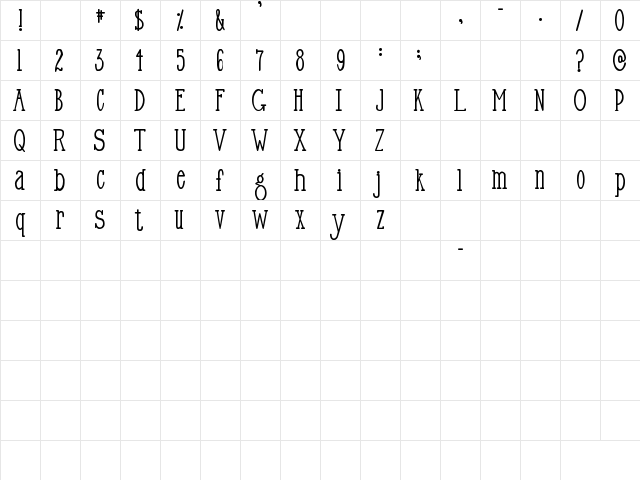
sp testitout Regular Font Preview
sp testitout Regular
Design Context for sp testitout Typeface
sp testitout offers clean, dependable letterforms without strong stylistic allegiance, making it a practical choice for designers who need flexibility.